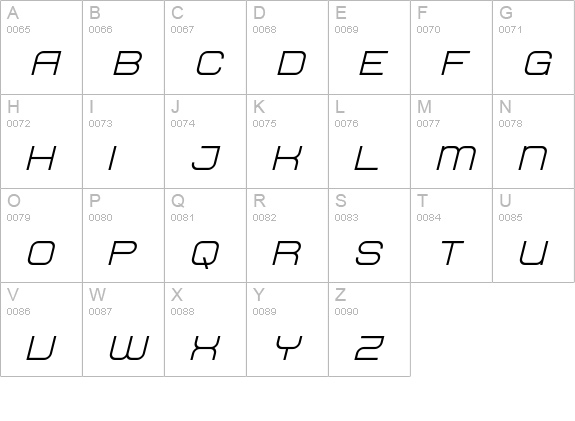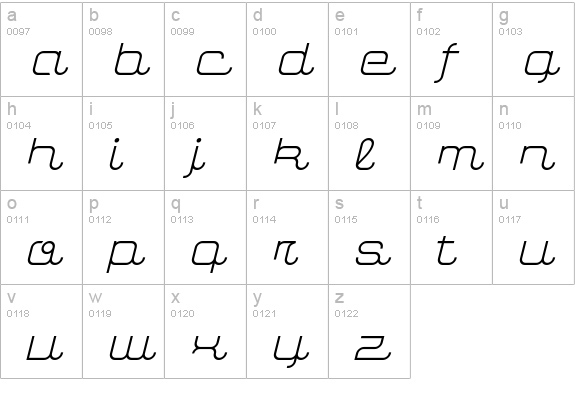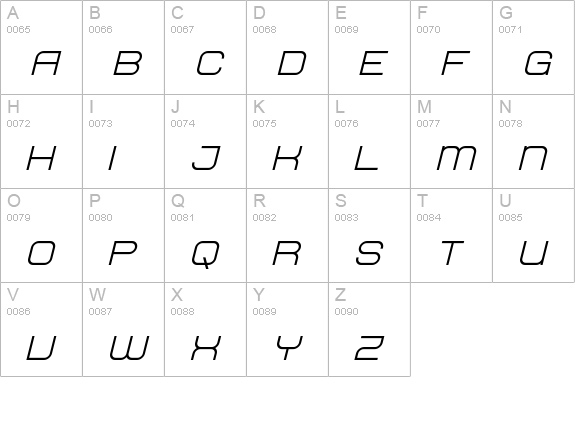
closeHookline Thin is a delicate, low-contrast variant in the closeHookline typeface family \xE2\x80\x94 well suited to fashion editorial, minimal branding, and high-contrast display.
CloseHookline Thin font is a sleek and elegant typeface that exudes modernity and sophistication. With its delicate lines and minimalist design, this font is perfect for adding a touch of refinement to any project. Whether you are creating a logo, designing a website, or crafting a poster, CloseHookline Thin font will elevate your work with its subtle yet impactful appearance. Best of all, CloseHookline Thin font is completely free to download at FontsMarket.com. Take advantage of this beautiful font at no cost and enhance your designs with its clean and stylish aesthetic. Download now and start using CloseHookline Thin font to make a lasting impression with your creative projects.